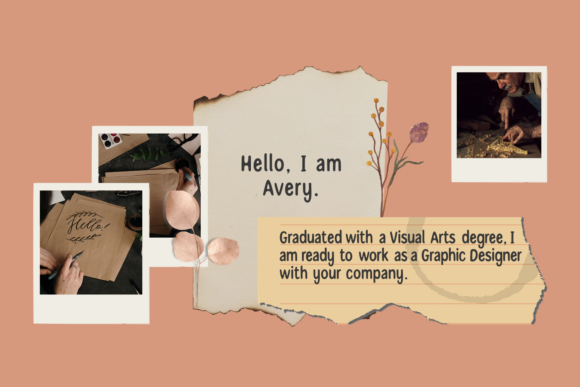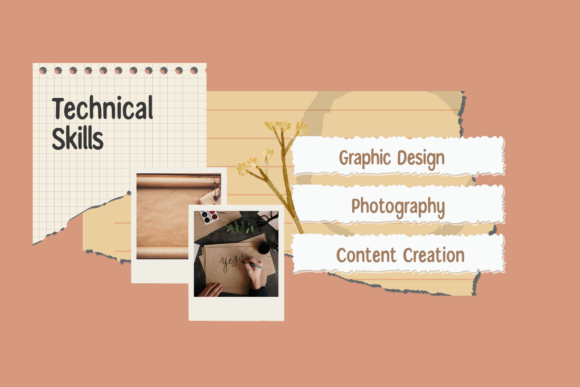
Summary Notes Font
db-ku.com - Script & Handwritten -- Summary Notes is a simple and neat handwritten font ready to impress your audience and make your branding shine. Make your projects stand out with this humble and wonderful font!